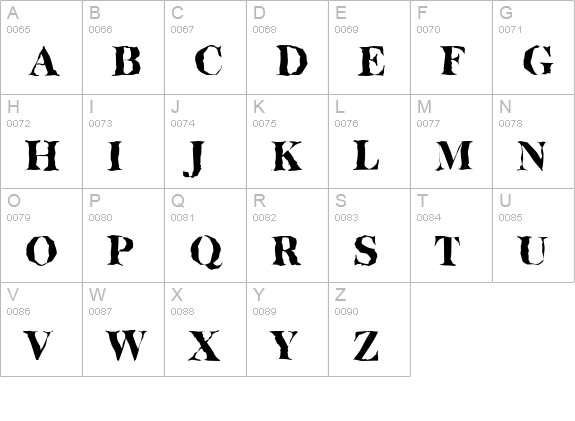
BaskervilleRandom-Heavy-Regular is a heavy, high-impact variant in the BaskervilleRandom typeface family \xE2\x80\x94 well suited to high-impact headlines, posters, and display advertising.
BaskervilleRandom-Heavy-Regular is a stunning and bold typeface that exudes elegance and sophistication. With its strong and distinctive letterforms, this font is perfect for creating eye-catching headlines, titles, and logos. The heavy weight of the font commands attention and adds a touch of modernity to any design project. What sets BaskervilleRandom-Heavy-Regular apart is its unique random characteristics that give each letter a slightly different appearance, adding an element of unpredictability and intrigue to your typography. This font is versatile and can be used in a variety of design applications, from print materials to digital projects. Best of all, BaskervilleRandom-Heavy-Regular is free to download at FontsMarket.com. Whether you're a designer looking to add a touch of sophistication to your work or a business owner in need of a distinctive font for your branding, BaskervilleRandom-Heavy-Regular is the perfect choice. Download it today and elevate your designs with this exceptional typeface.